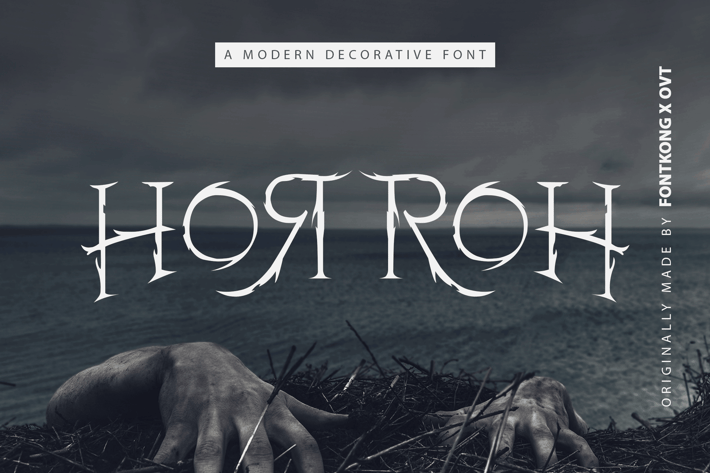
Horroh - Modern Blackletter Typeface
Introducing "Horroh," a modern blackletter typeface that merges classic gothic elements with contemporary design. Perfect for graphic designers, typographers, and creatives aiming to infuse their projects with a dark, dramatic flair, Horroh offers a bold and sophisticated aesthetic ideal for any design with a touch of mystery and elegance.
Ideal for gothic-themed branding, book covers, posters, apparel designs, and event promotions, Horroh’s intricate and ornate characters evoke a sense of timeless fear and dark elegance. Each letter is meticulously crafted to ensure exceptional readability while delivering a striking visual impact, making your designs both captivating and haunting.
The "Horroh" font includes a complete set of uppercase and lowercase letters, numbers, punctuation marks, and special characters. This versatile set allows for seamless integration into various design applications, from dramatic branding to stylish editorial layouts.
Embrace the dark elegance of Horroh, the modern blackletter typeface that combines timeless fear with sophisticated design.
Introducing "Horroh," a modern blackletter typeface that merges classic gothic elements with contemporary design. Perfect for graphic designers, typographers, and creatives aiming to infuse their projects with a dark, dramatic flair, Horroh offers a bold and sophisticated aesthetic ideal for any design with a touch of mystery and elegance.
Ideal for gothic-themed branding, book covers, posters, apparel designs, and event promotions, Horroh’s intricate and ornate characters evoke a sense of timeless fear and dark elegance. Each letter is meticulously crafted to ensure exceptional readability while delivering a striking visual impact, making your designs both captivating and haunting.
The "Horroh" font includes a complete set of uppercase and lowercase letters, numbers, punctuation marks, and special characters. This versatile set allows for seamless integration into various design applications, from dramatic branding to stylish editorial layouts.
Embrace the dark elegance of Horroh, the modern blackletter typeface that combines timeless fear with sophisticated design.